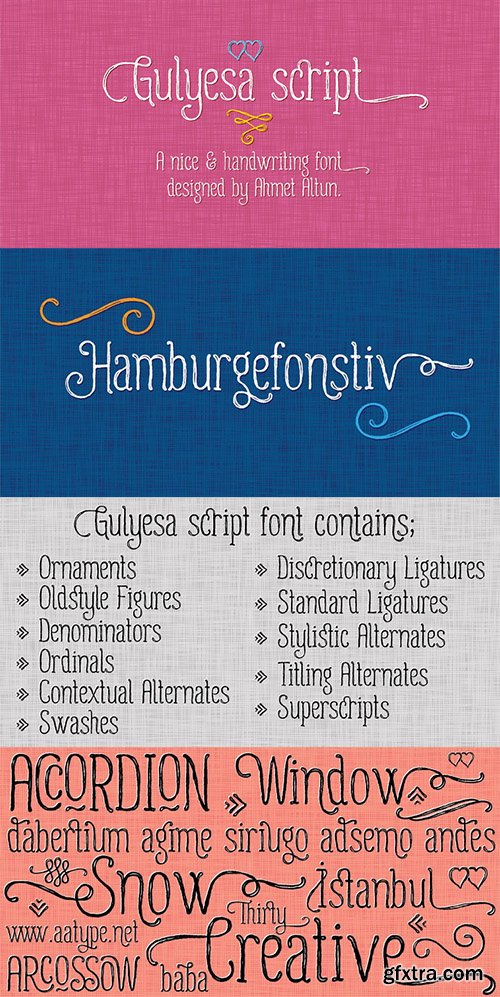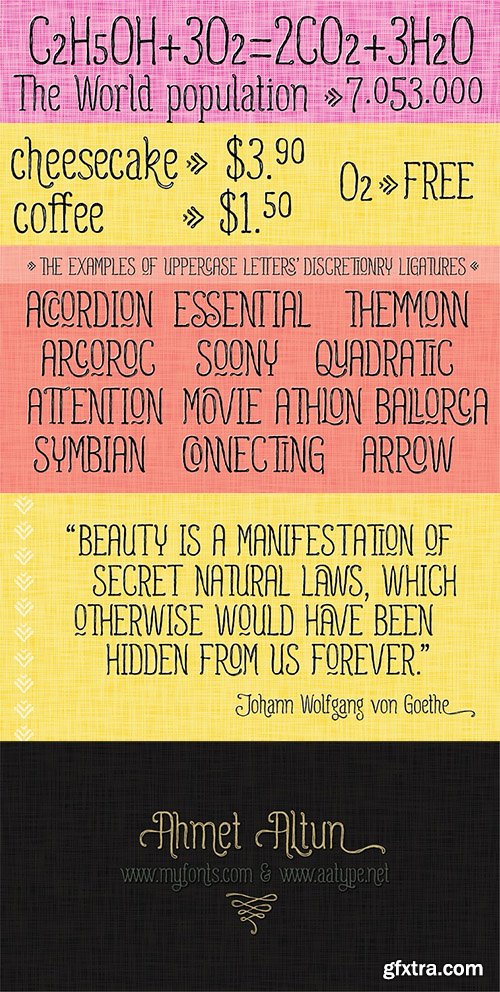
Gulyesa script font is a handwriting typeface. It offers stylish alternatives at the first and last letters of the words. In addition to that the font contains a great number of alternates as stylistic, titling, contextual alternates... Also it contains Swashes, Oldstyle Figures and Ornaments. Gulyesa script font is a stylish handwriting font that can be used in everywhere the designers choose and admire.The name of Gulyesa Script Font consists two words; gul means Rose and yesa means a praised person. The name comes from my dear daughter’s name.